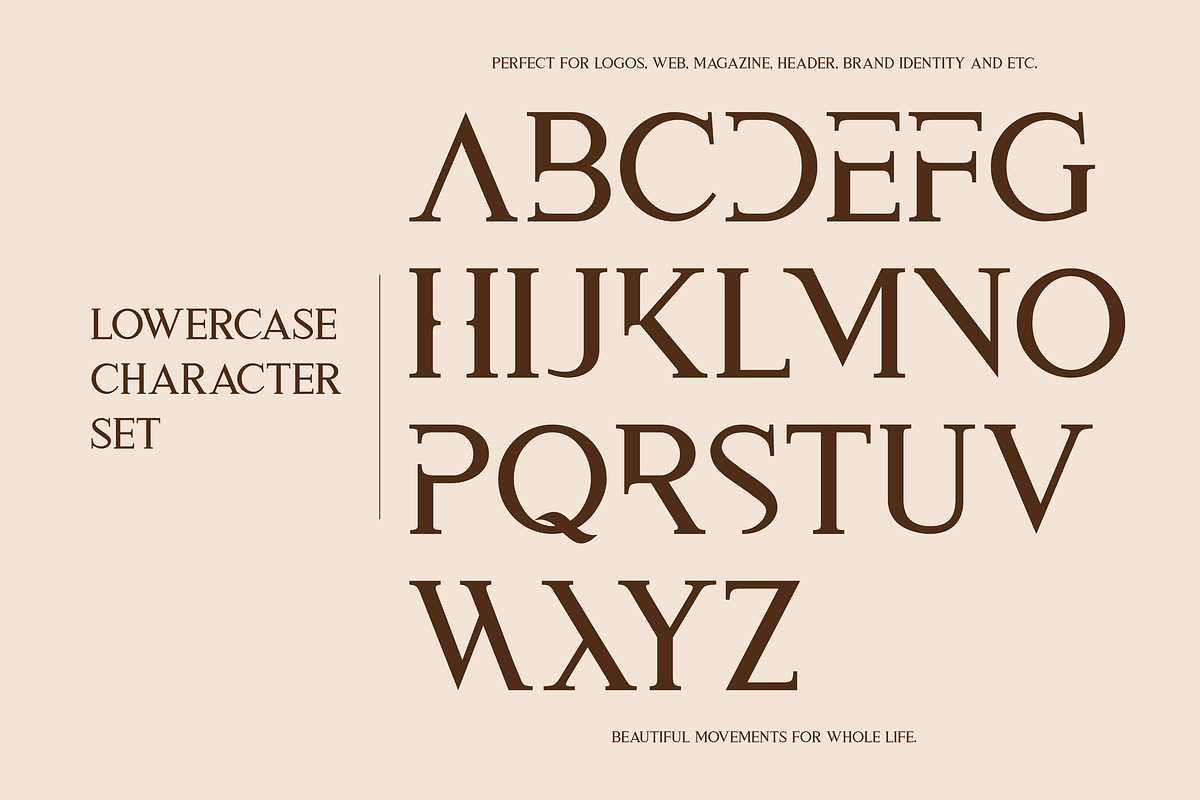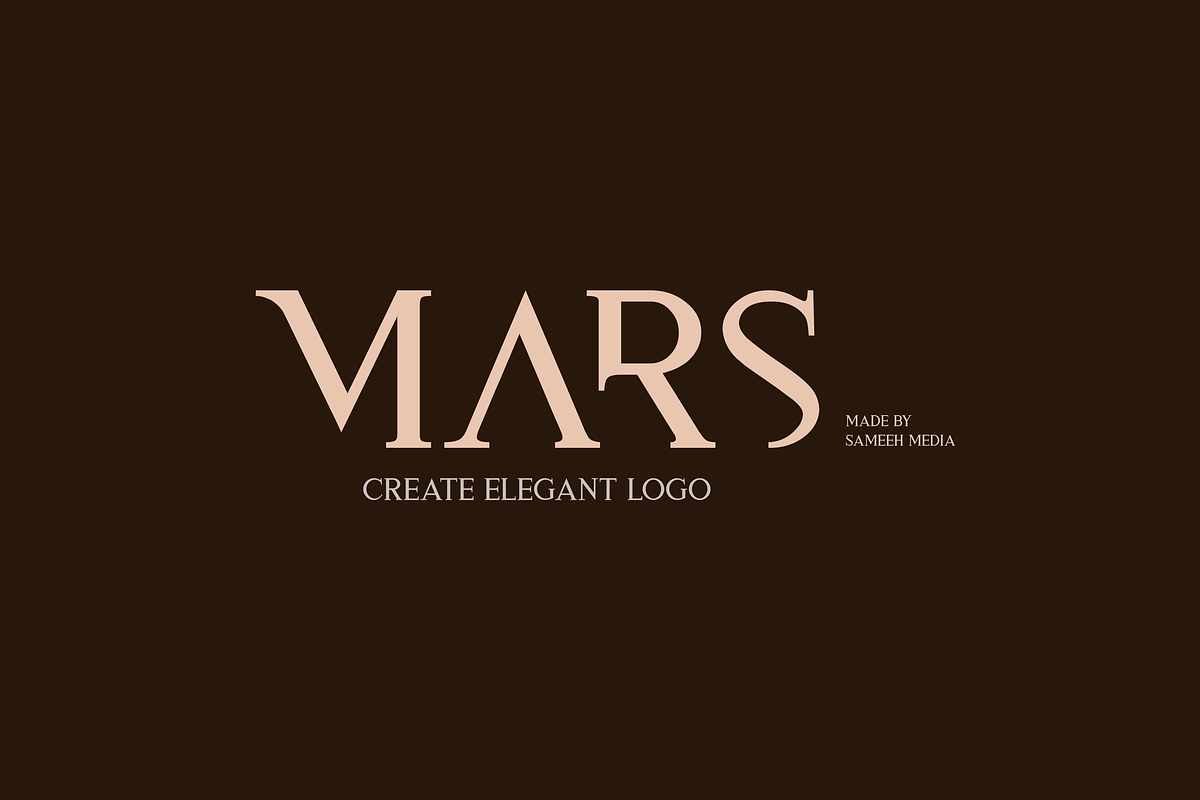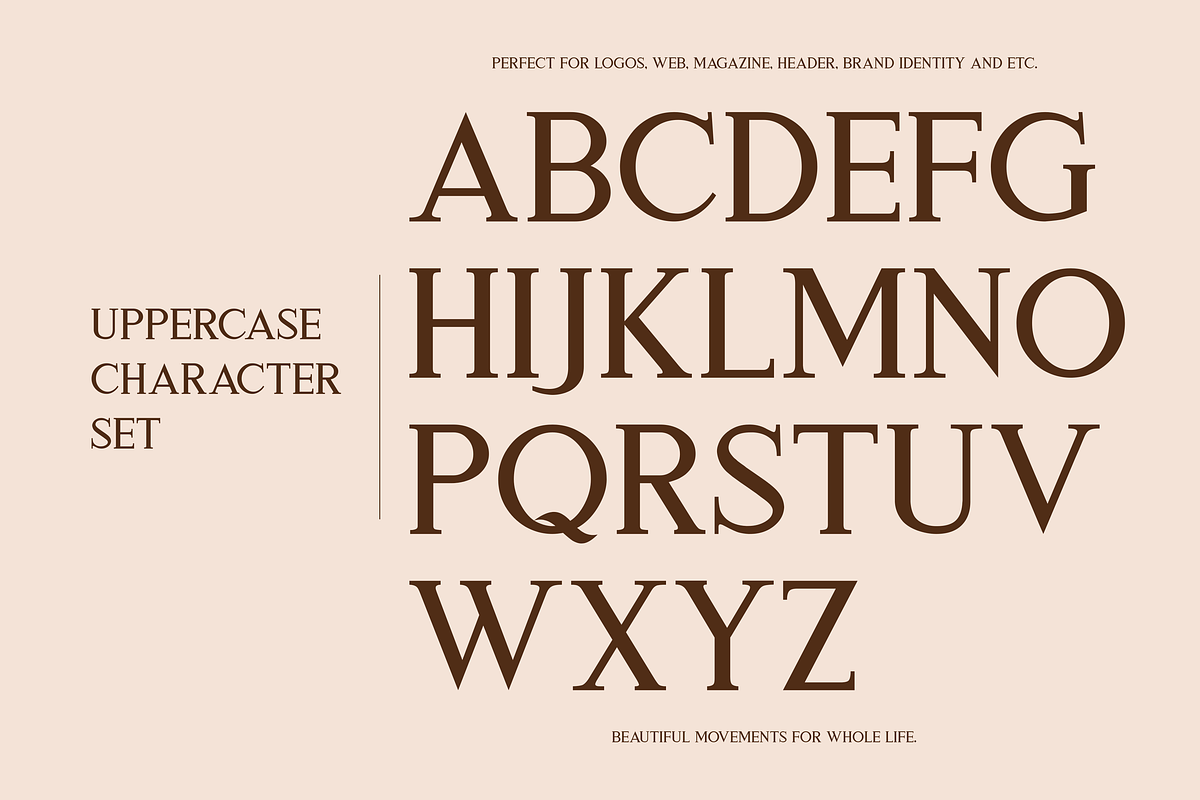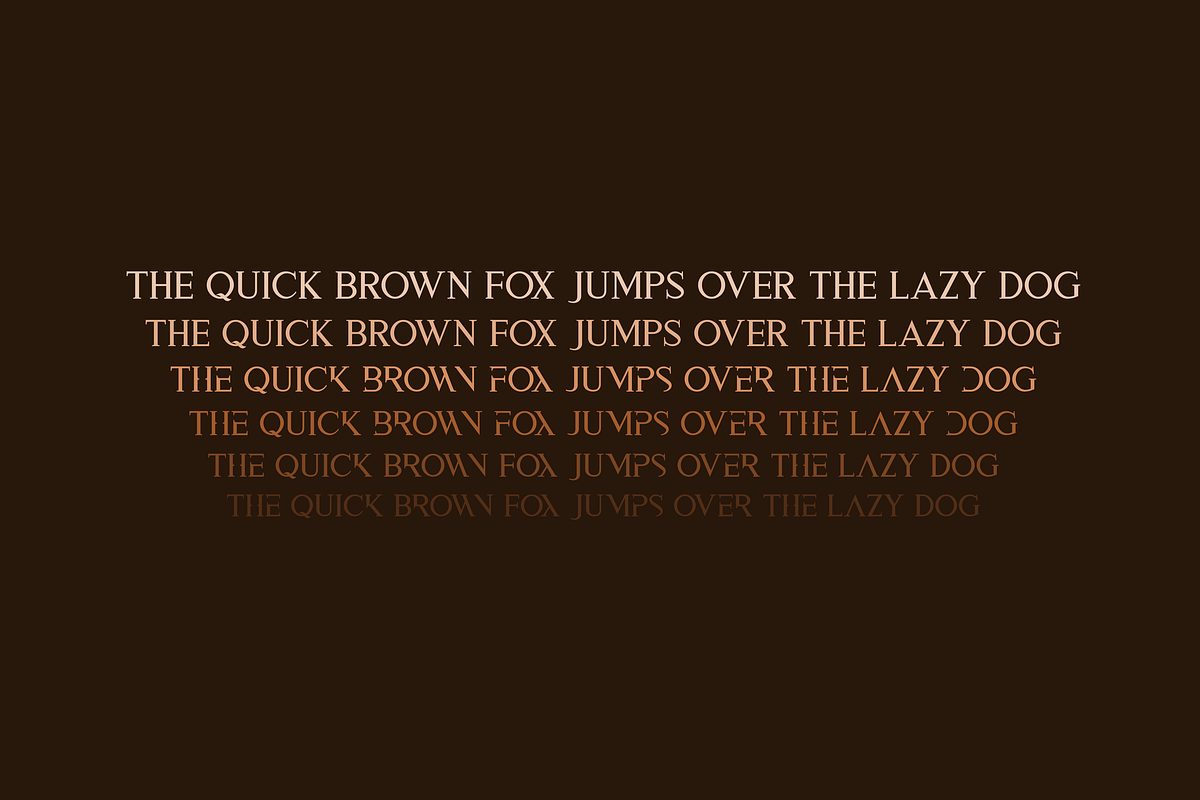
Aspal Typeface Font
Aspal Typeface Font by Graphicfresh is a font selected for branding, posters, packaging, typography.
Why Aspal Typeface Font is worth a look
Aspal Typeface Font by Graphicfresh fits naturally into Branding, posters, packaging, typography.